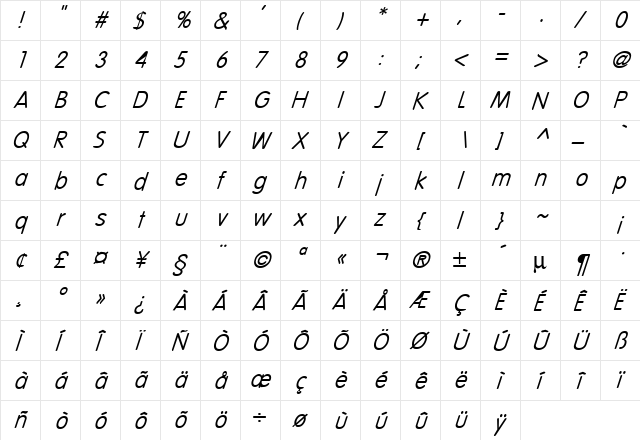
Lemons 15 Italic
Design Context for Lemons 15 Typeface
Lemons 15 takes a measured approach to typography — its balanced proportions and neutral character make it a reliable workhorse for both digital and print work. Its italic angle brings a sense of urgency and motion to the letterforms.
Pro Tip: Try Lemons 15 for annotation and caption copy alongside an upright companion — the contrast in angle creates a dynamic but ordered typographic system.